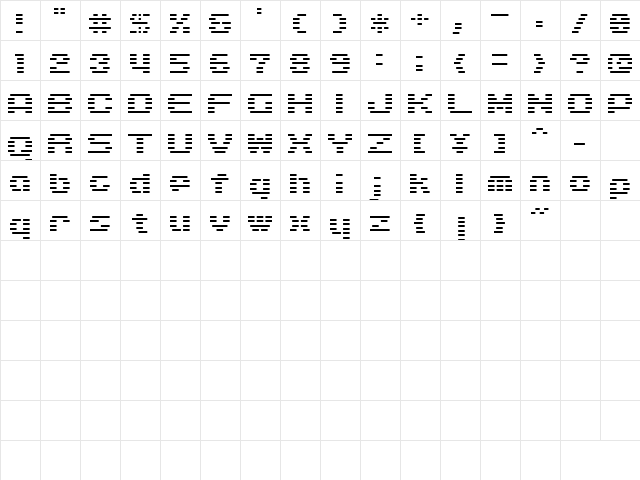
D3 DigiBitMapism type A wide Regular
Design Context for D3 DigiBitMapism type A wide Typeface
D3 DigiBitMapism type A wide is rooted in pixel-grid construction, making it a natural fit for game UI, retro computing aesthetics, and digital nostalgia projects.
Well-suited to indie game interfaces, retro computing aesthetics, and pixel art-adjacent design work.
Pro Tip: Use D3 DigiBitMapism type A wide at sizes that align with its pixel grid for the sharpest rendering — scaling to non-integer multiples can introduce unwanted blur.